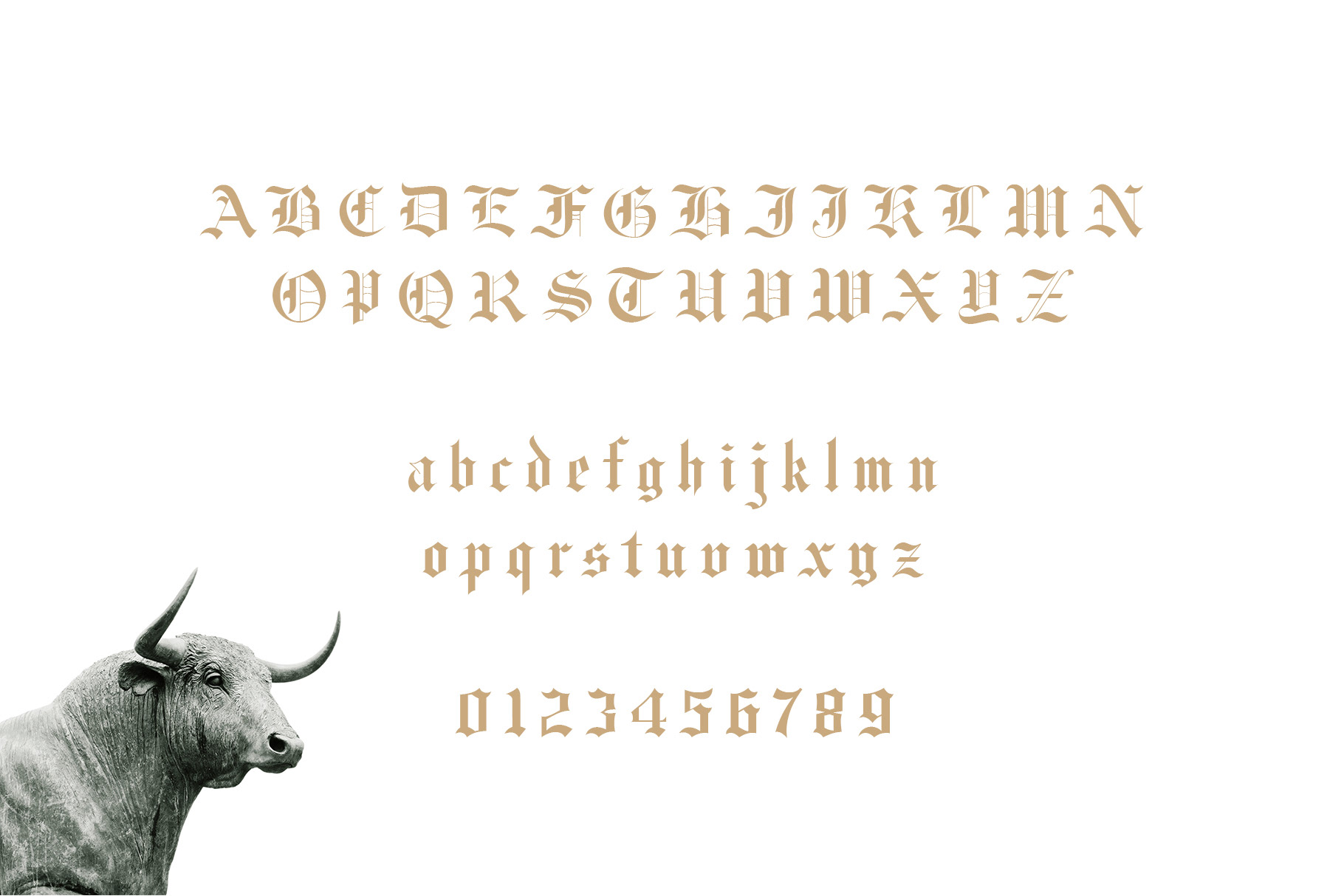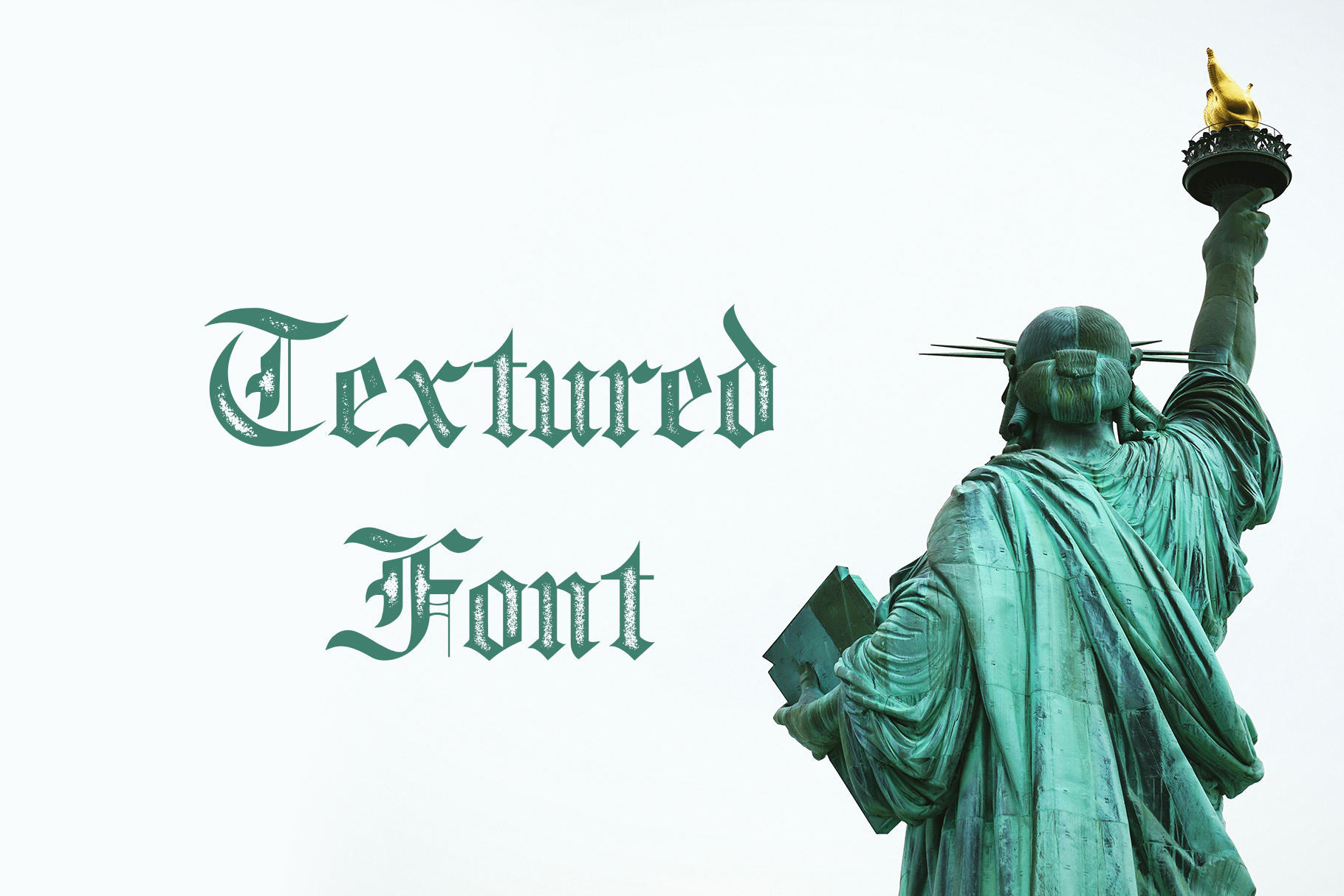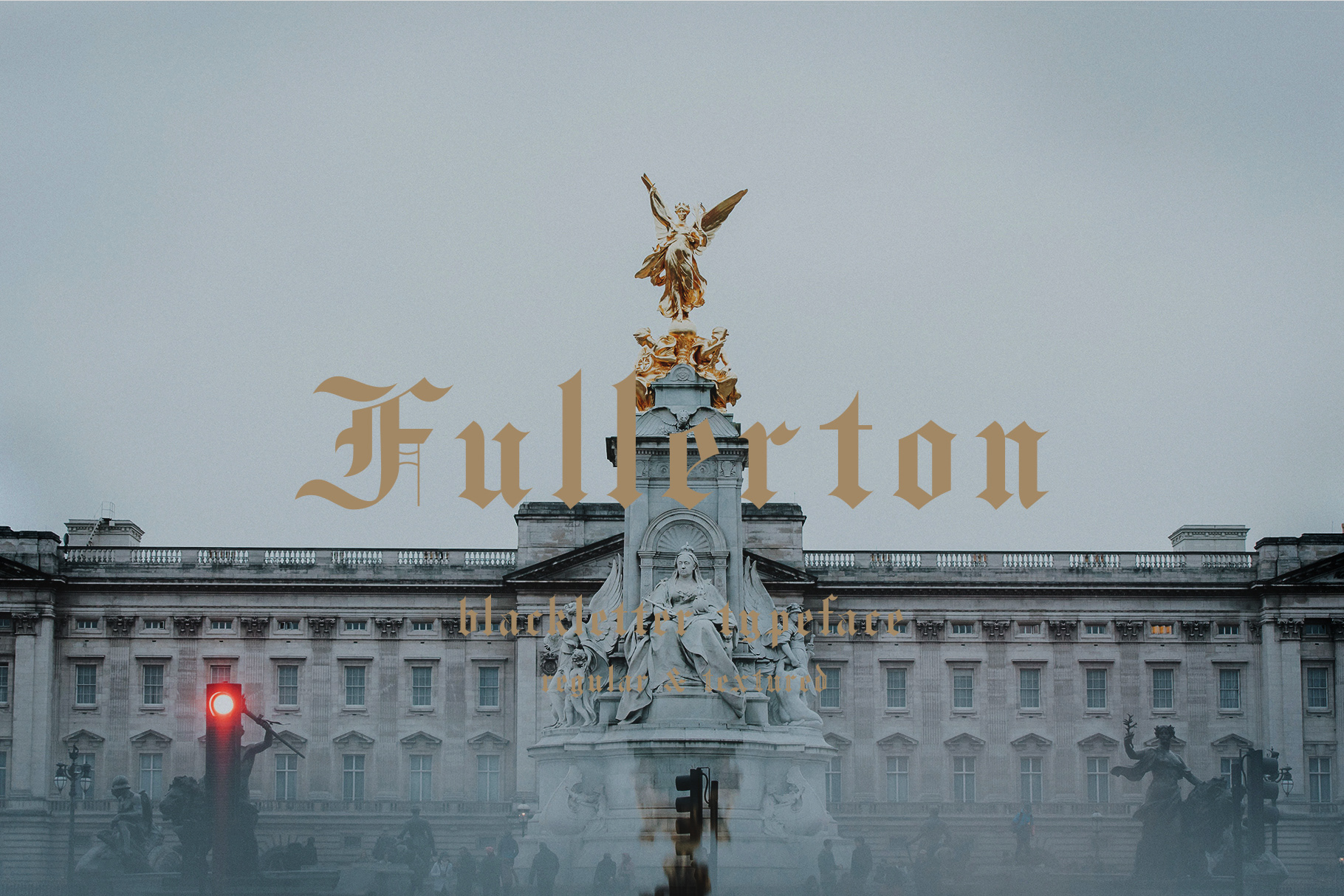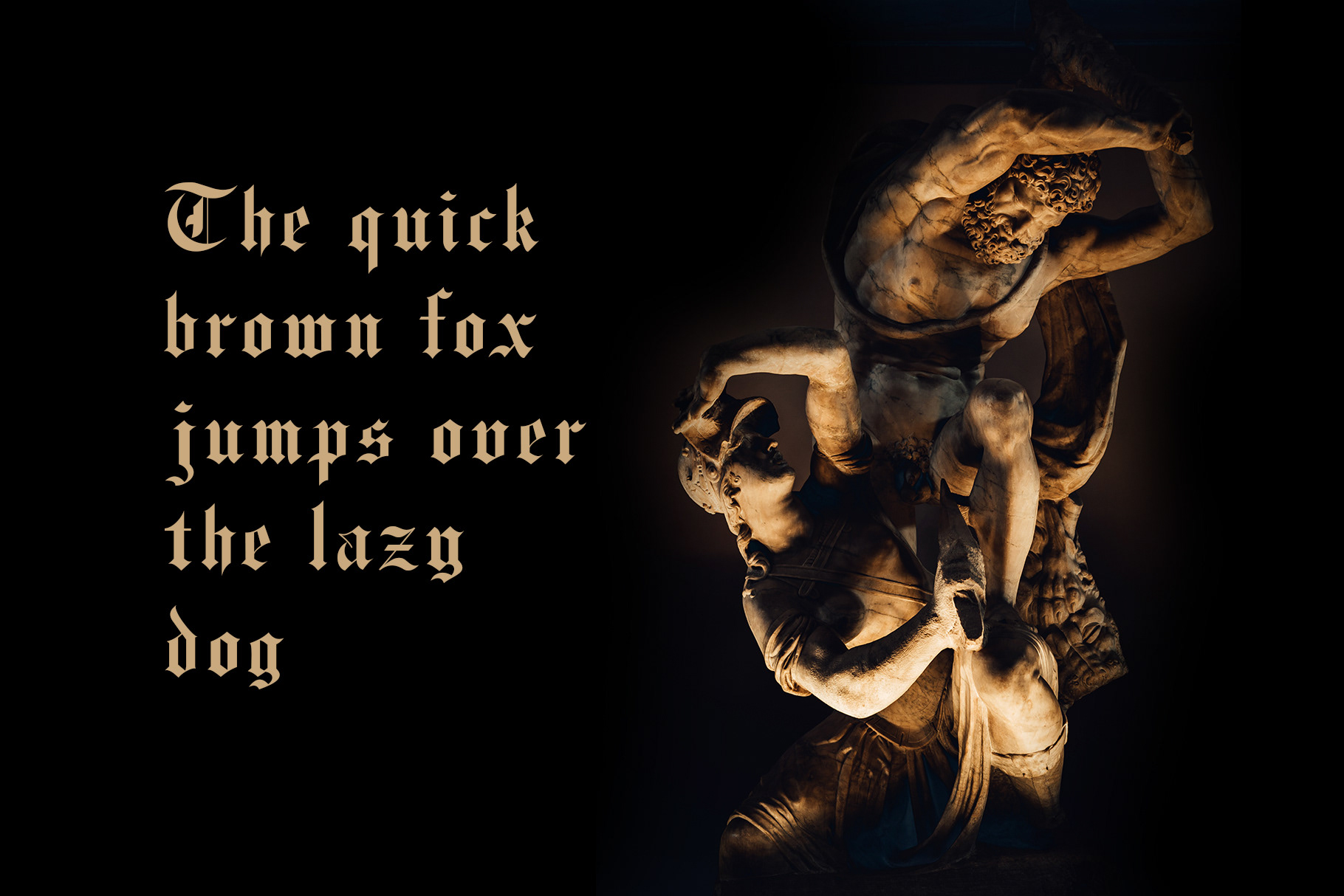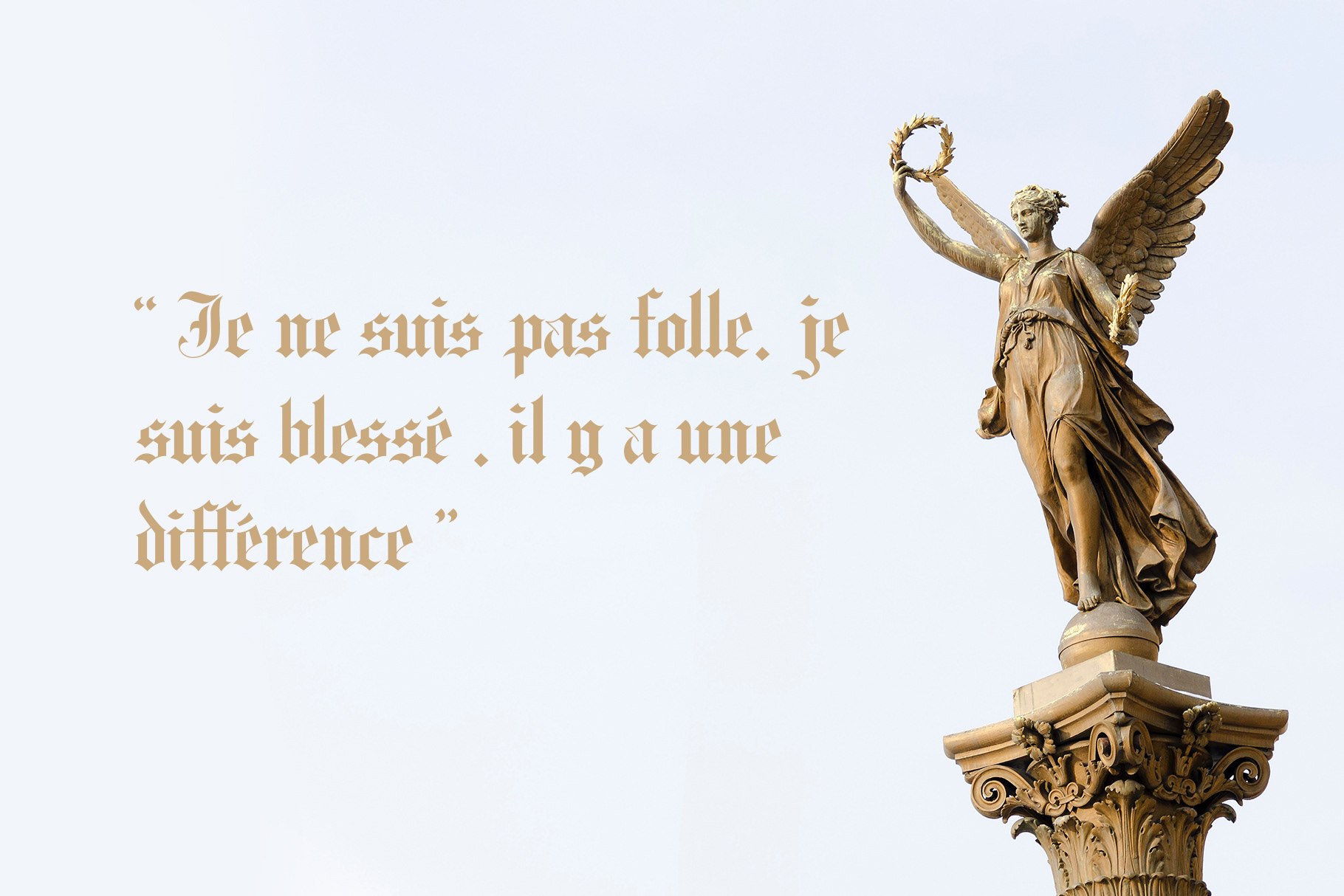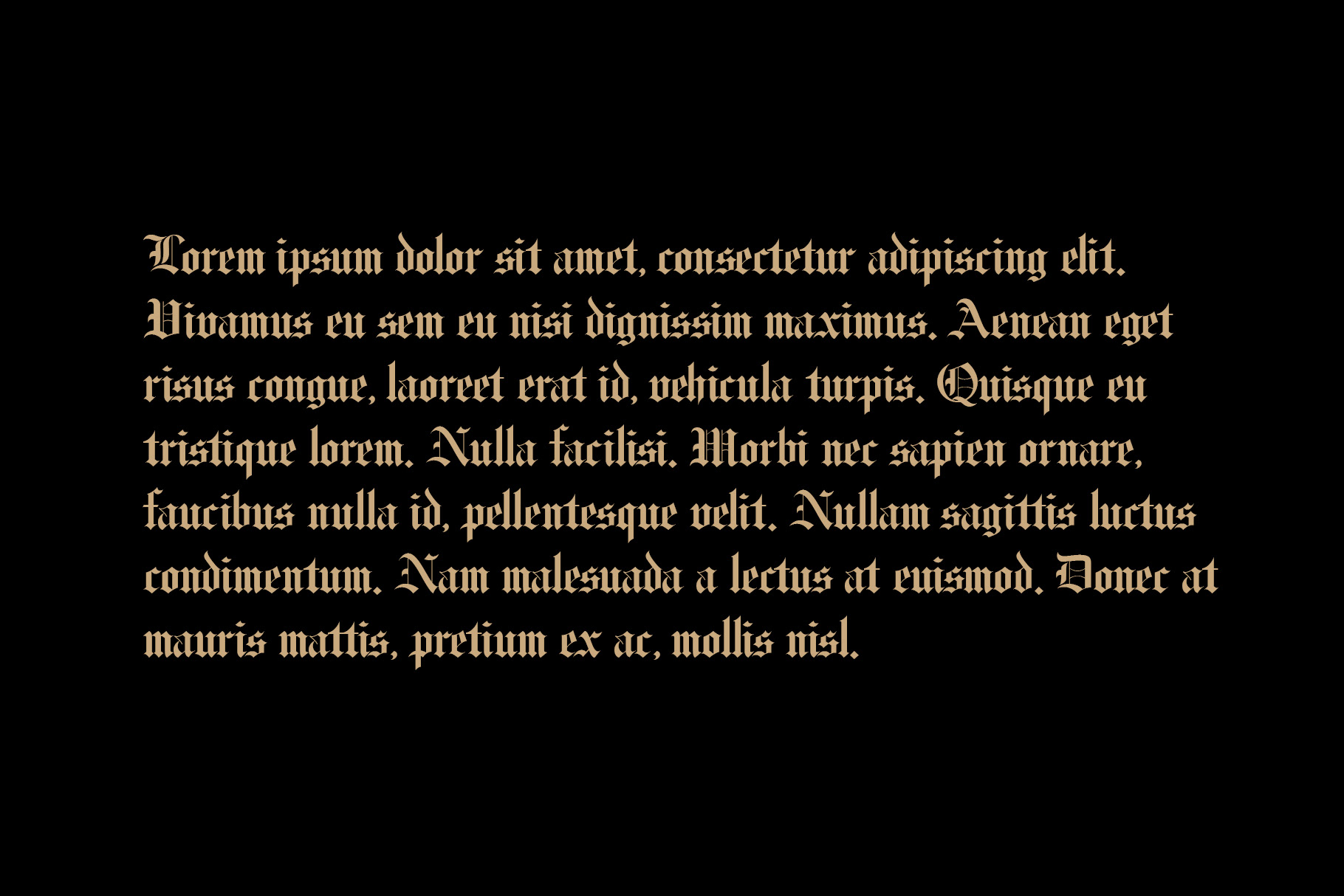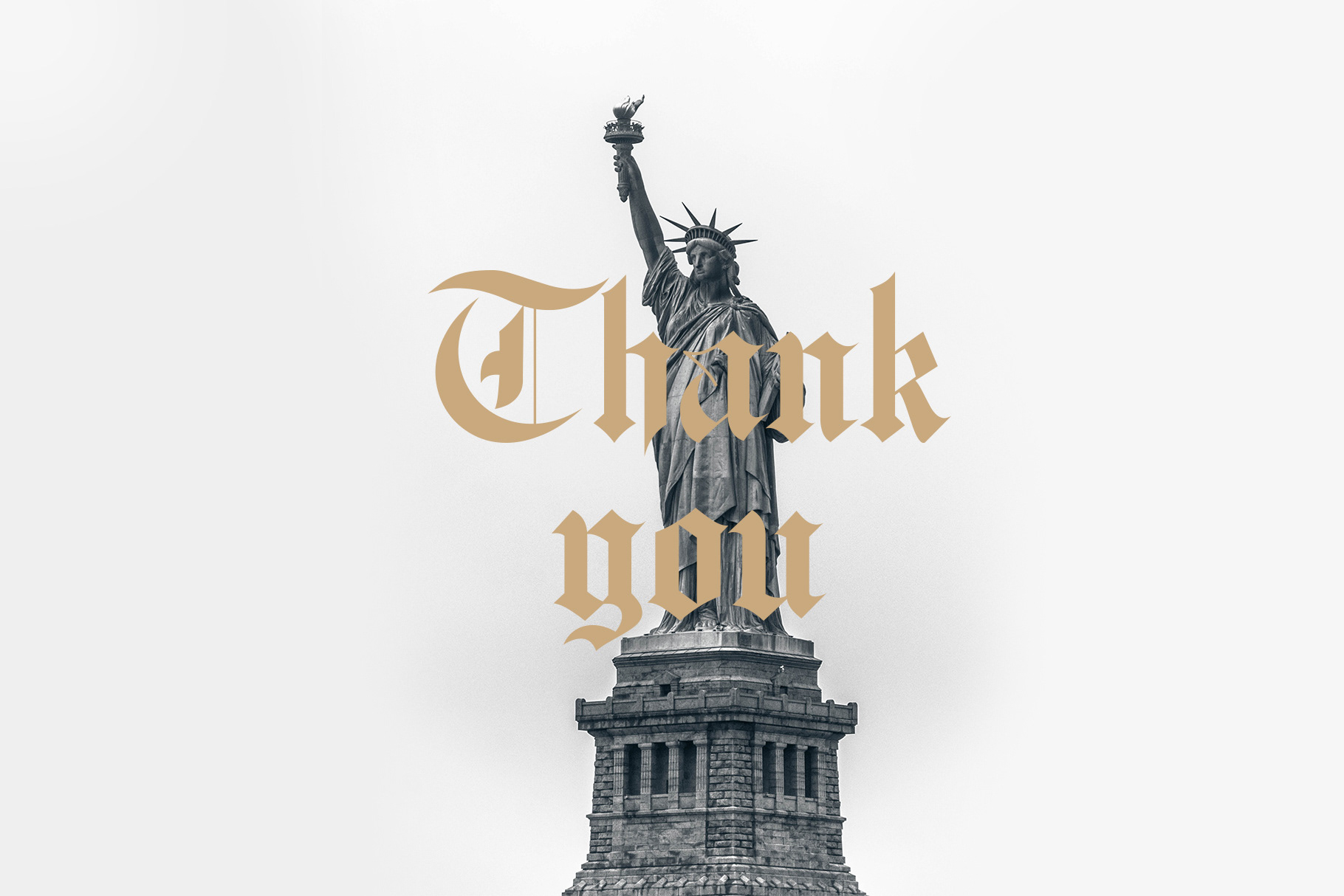
Fullerton typeface
Fullerton typeface is a font made by me inspired by the sub text of a book. I made it because I think this font is unique.You can use this font to create logos, posters, magazines, books, and other design needs, or also for collections.